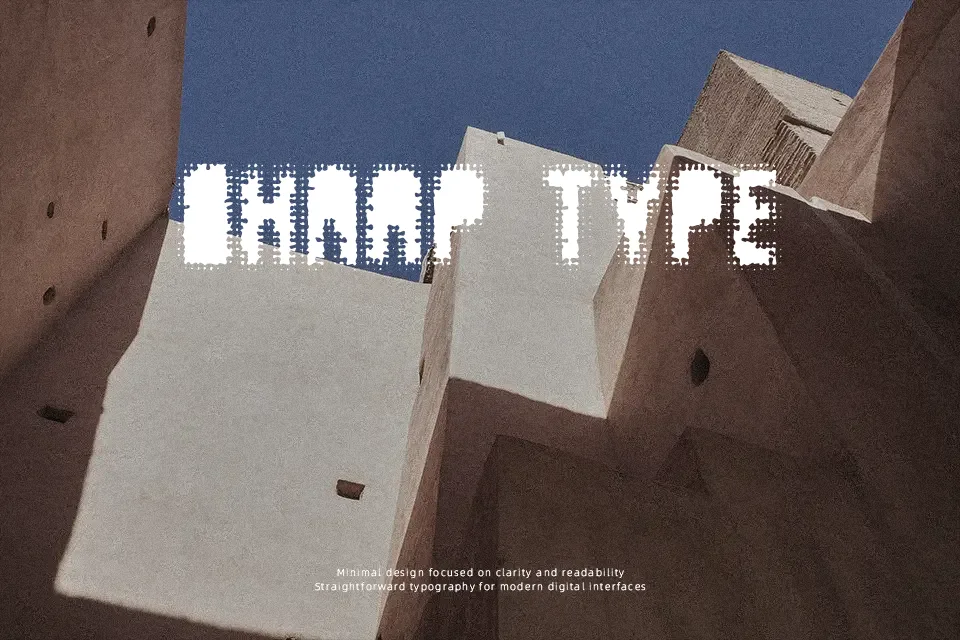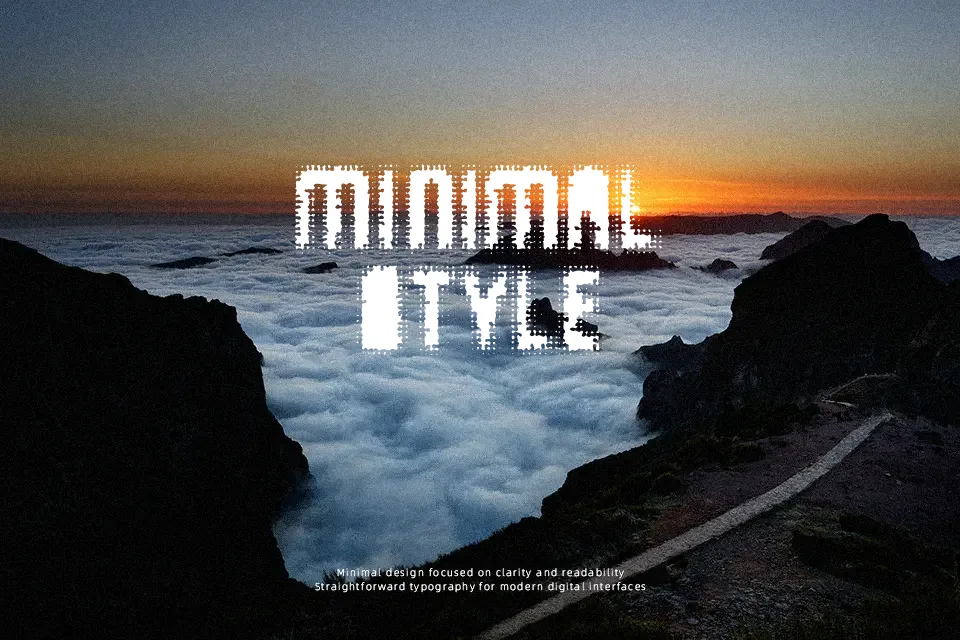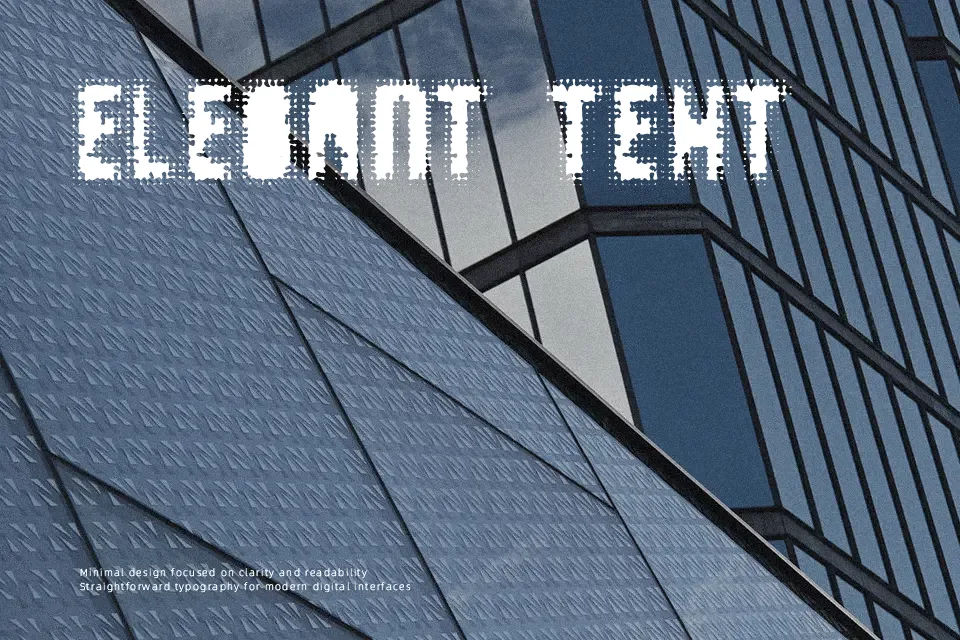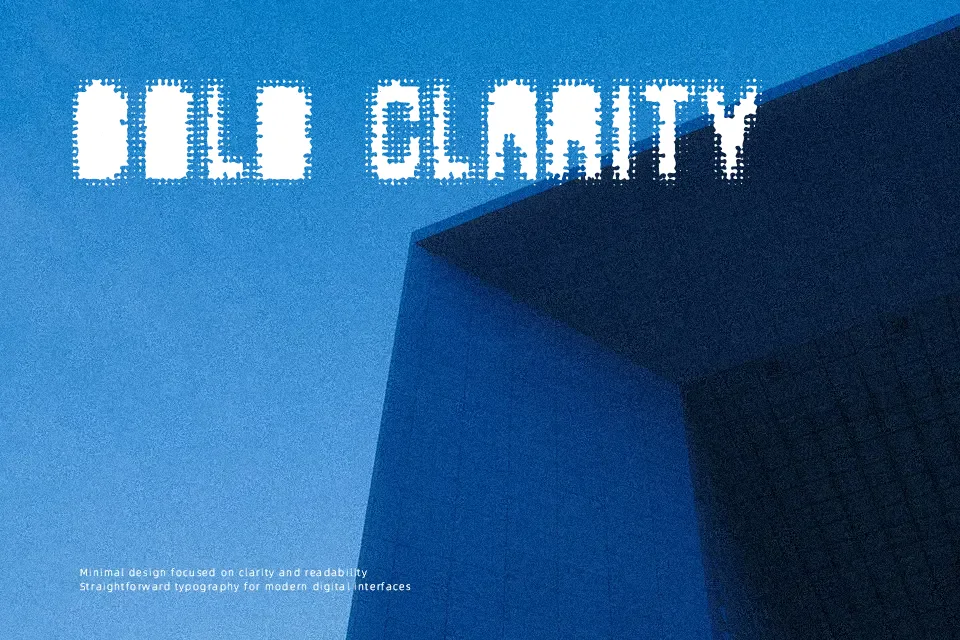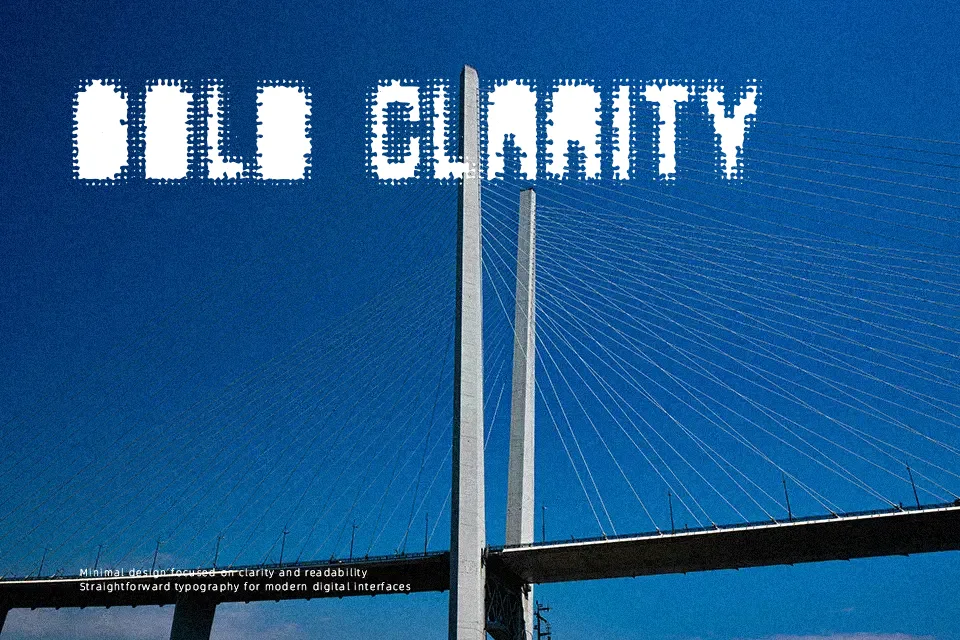
AntKiller Font
Designed by Dave Luscombe
AntKiller features thick, uneven strokes with jagged edges and deliberate distressing that creates a hazardous, almost corroded appearance. The letterforms lean toward the bold end of the weight spectrum, with irregular spacing and aggressive terminals that give each character a damaged, industrial look. This destructive quality works well when you need to communicate danger, rebellion, or raw energy—think album covers for metal bands, posters for horror film festivals, or branding for extreme energy drinks. The font’s toxic aesthetic resonates in contexts where conventional polish would feel out of place. However, the heavy distressing becomes illegible below 24pt, making body text or captions impractical. Multi-line paragraph setting also suffers due to inconsistent character widths and the visual noise from eroded edges. It’s most effective when used sparingly for single-word impact or short headlines where legibility isn’t compromised by the decorative treatment.
– horror movie posters and titles
– heavy metal or punk band logos
– extreme sports event graphics
– Halloween party invitations
– body text or long paragraphs
– corporate branding materials
– mobile app interfaces
– children’s content